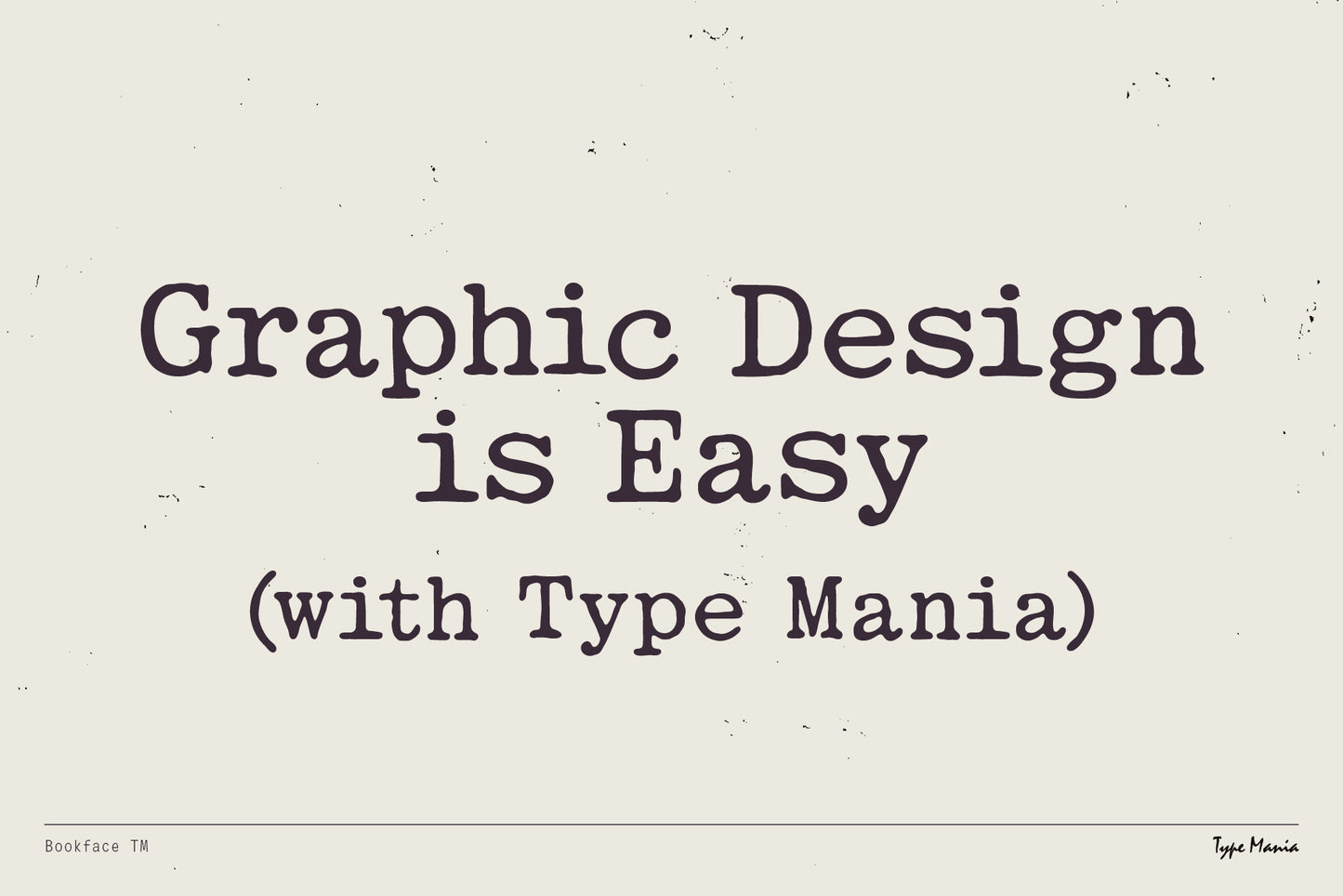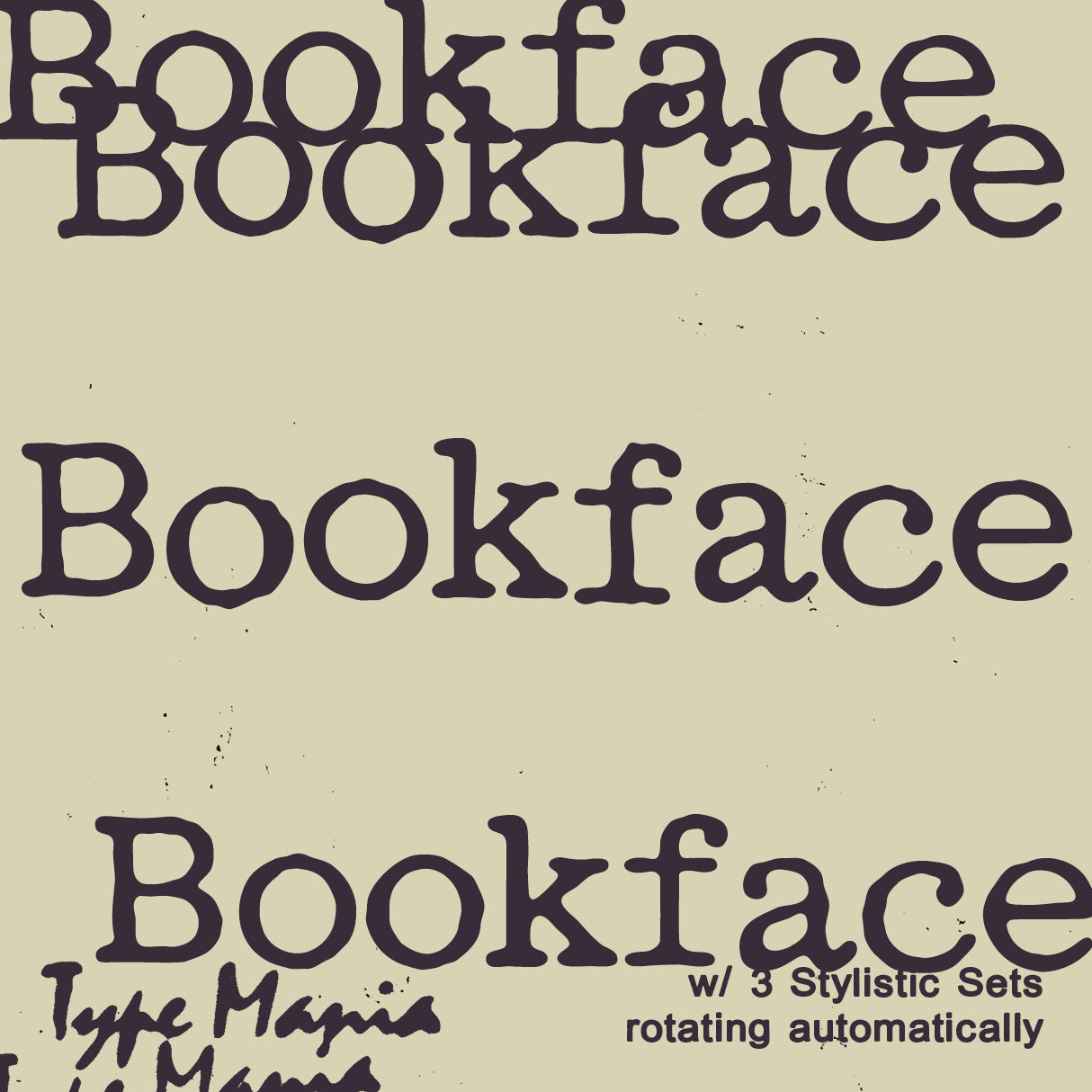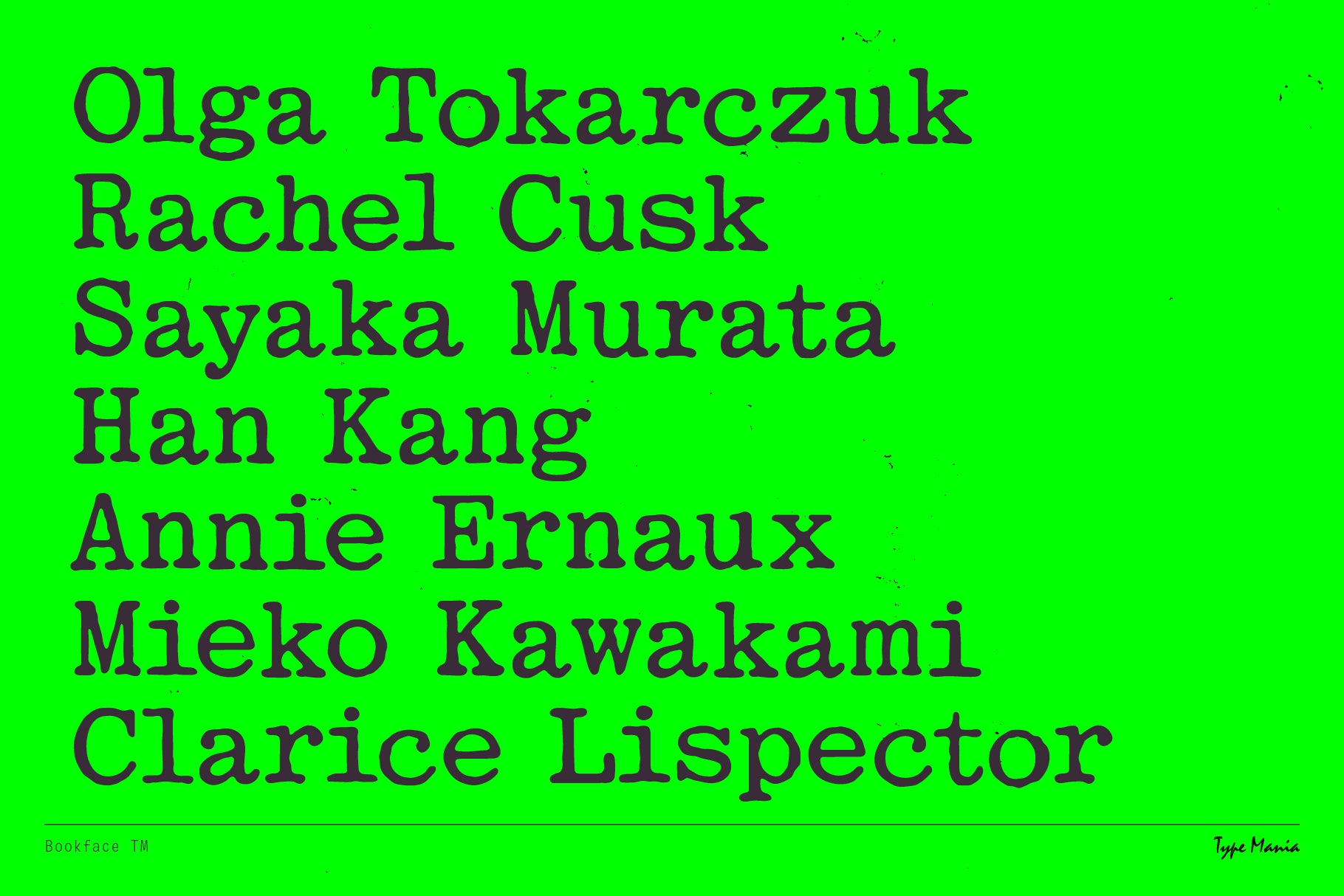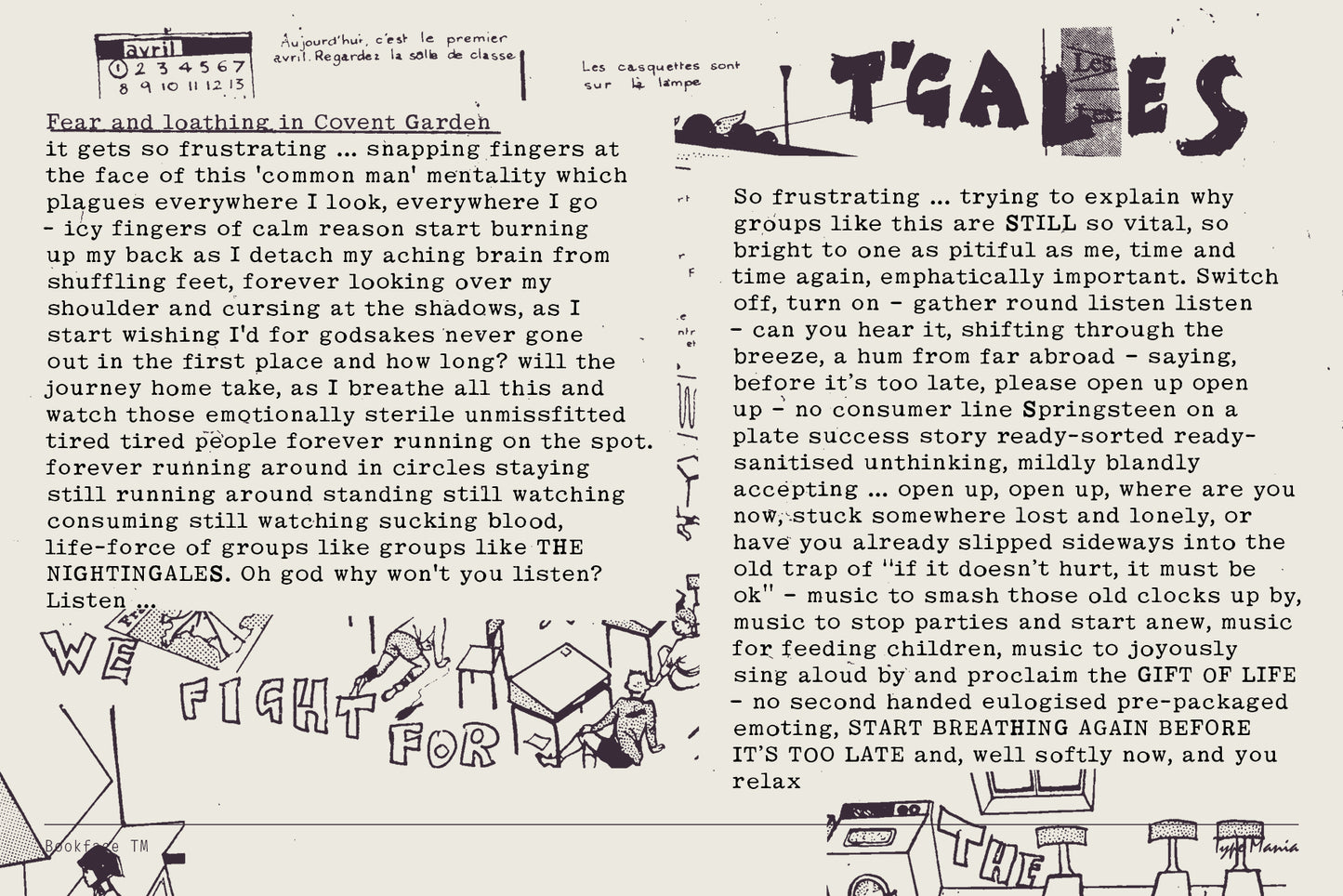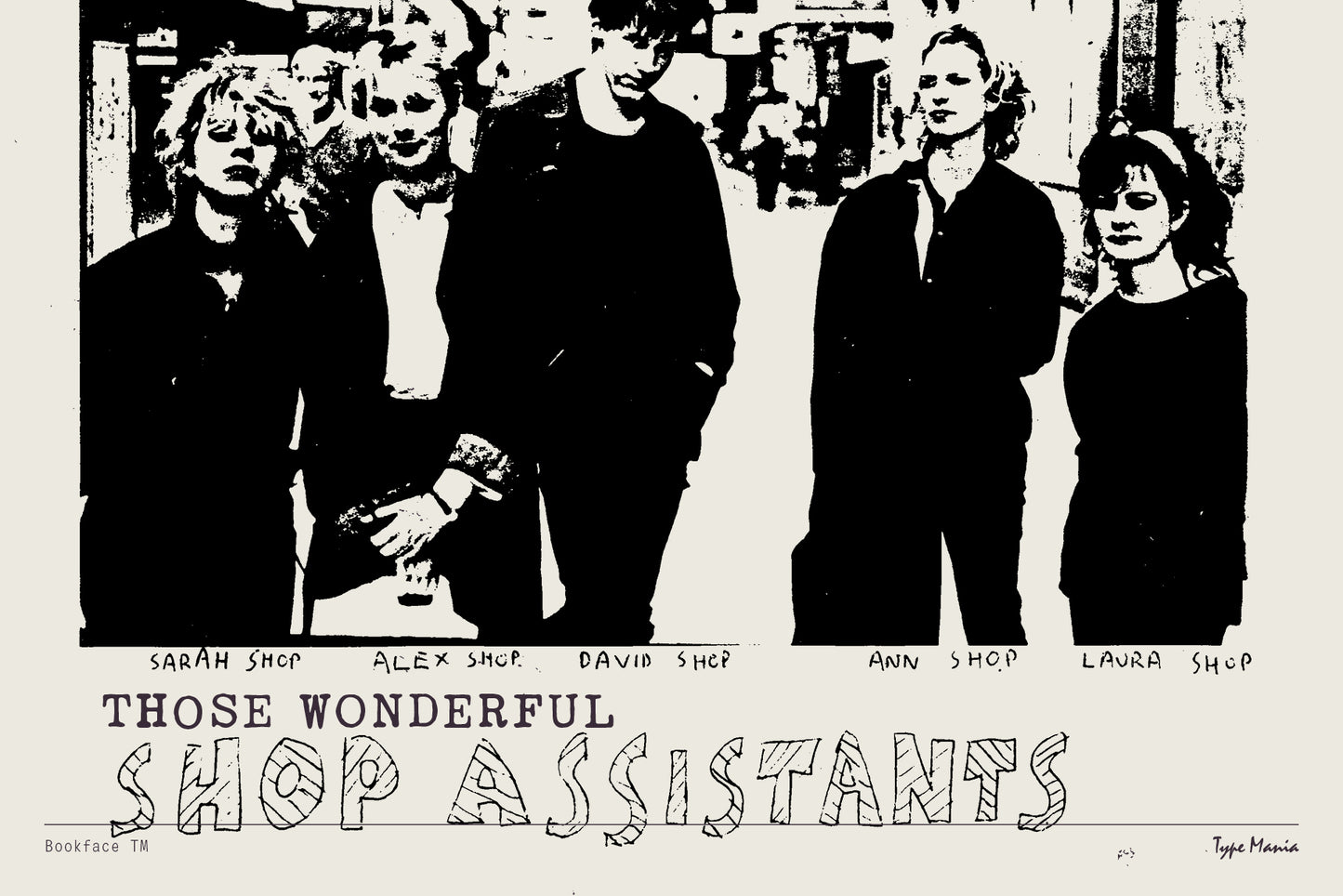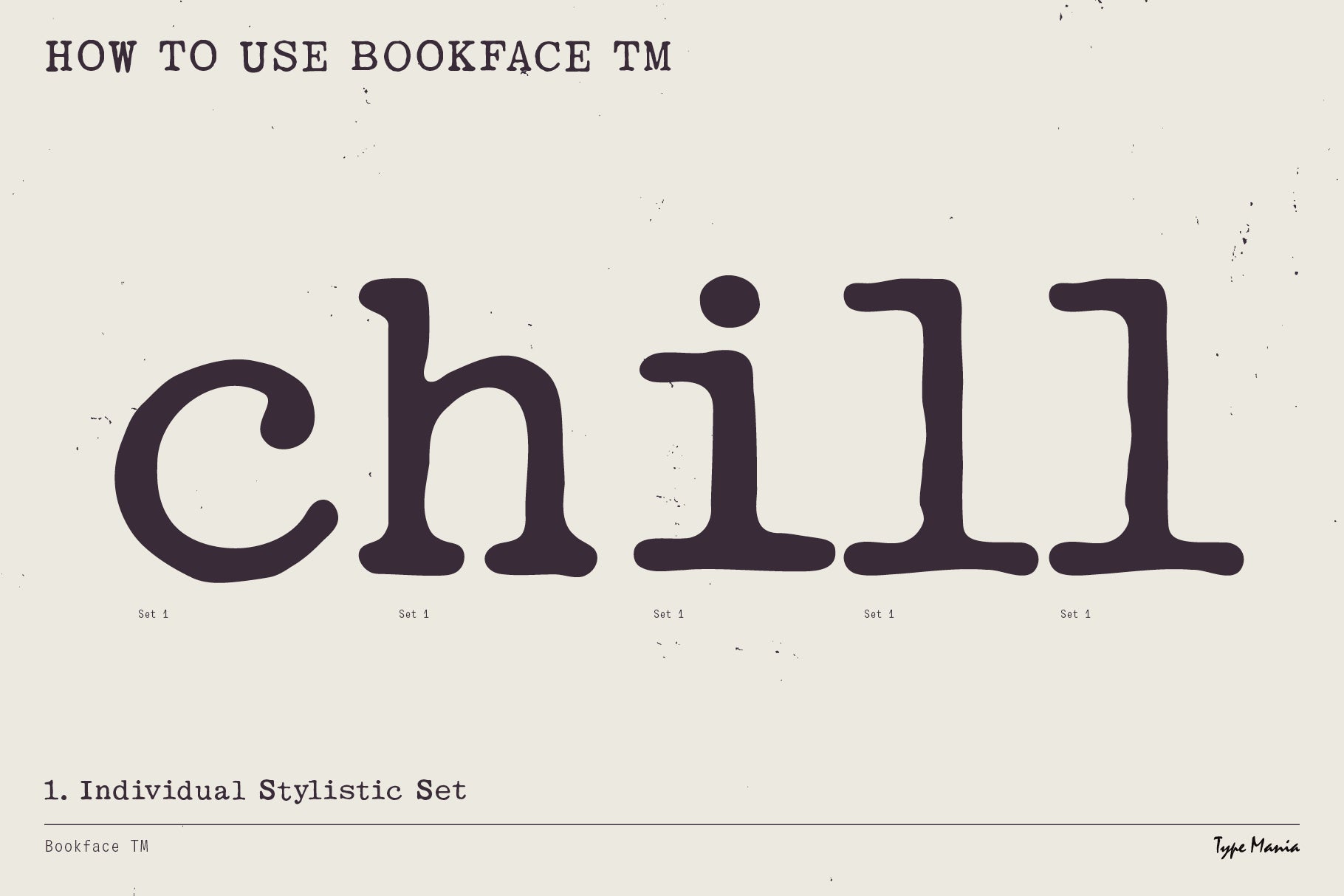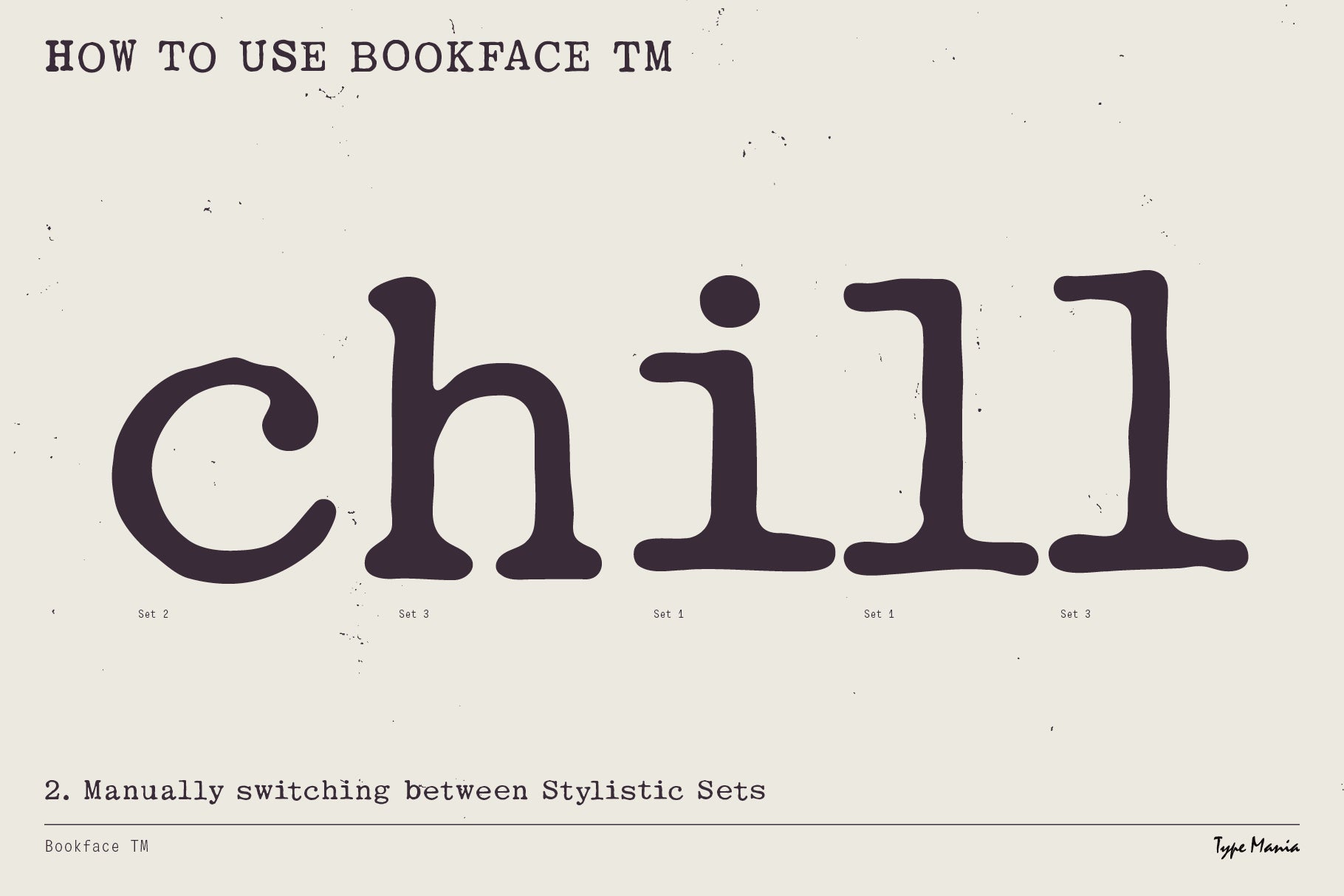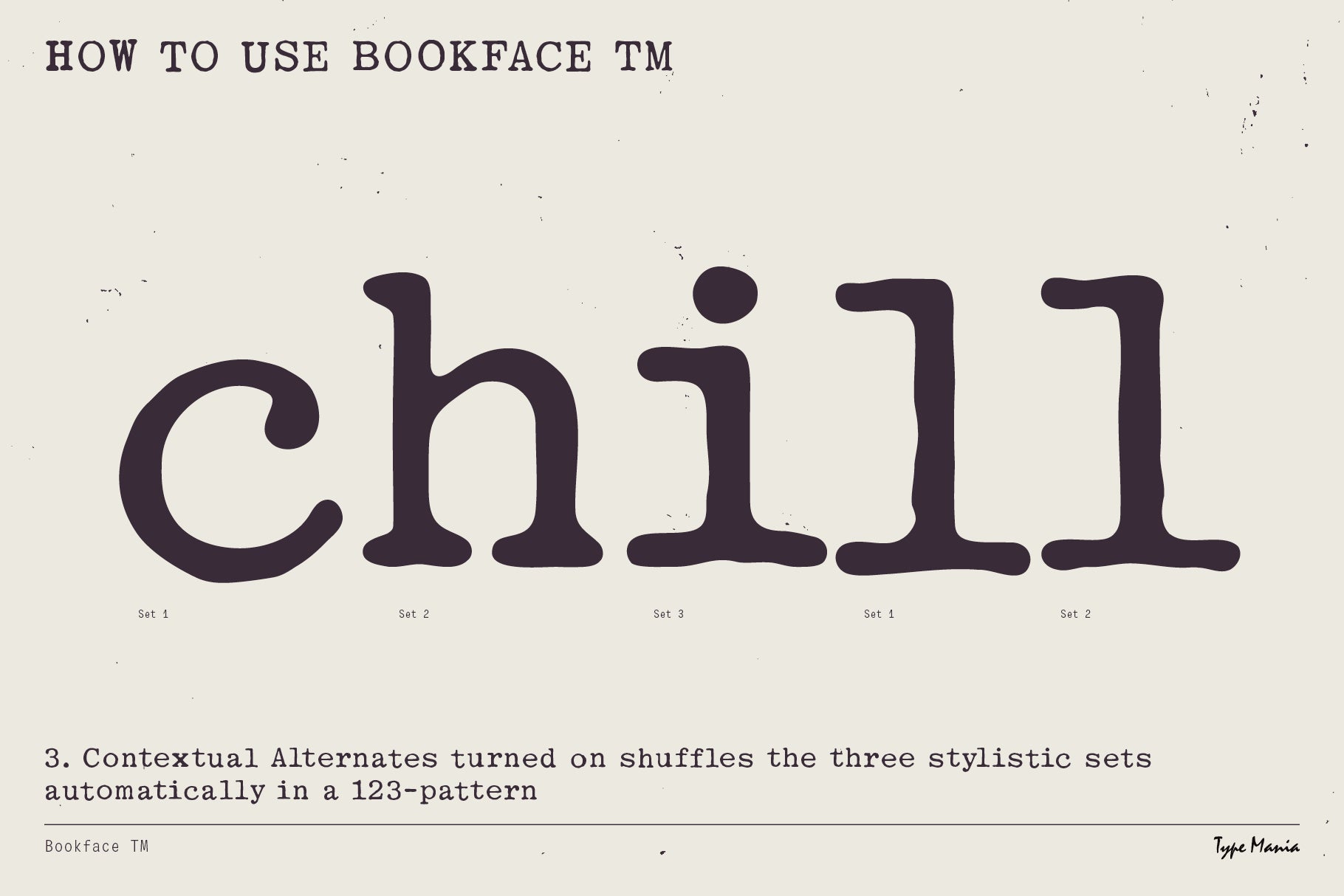
Bookface TM
Bookface TM – an egyptienne slab with three stylistic sets in the mix. Switch on contextual alternates and the letters rotate automatically, creating a living texture for paper and pixels 🫡
- 3 stylistic sets
- The font is programmed to automatically shift between the stylistic sets